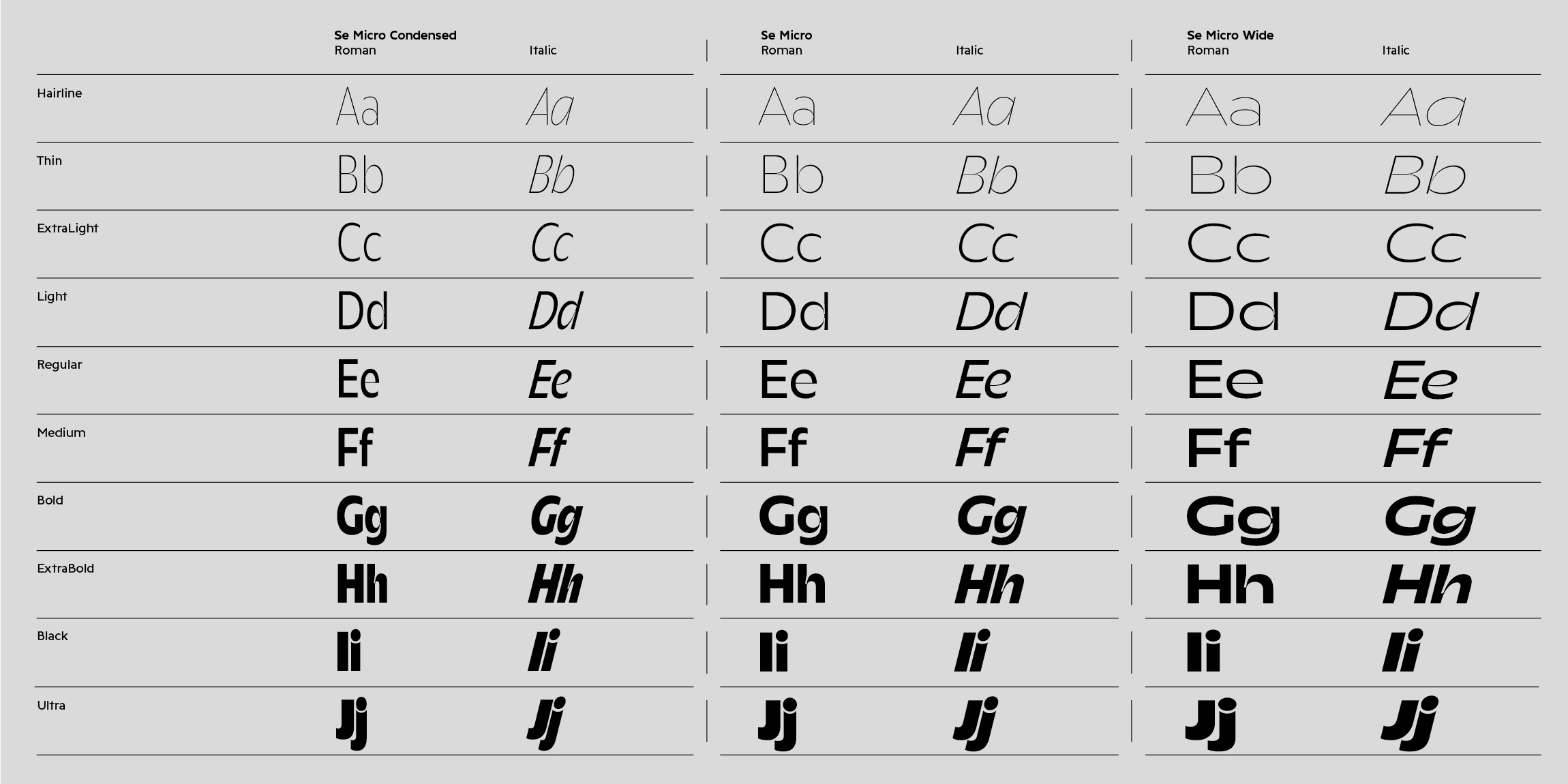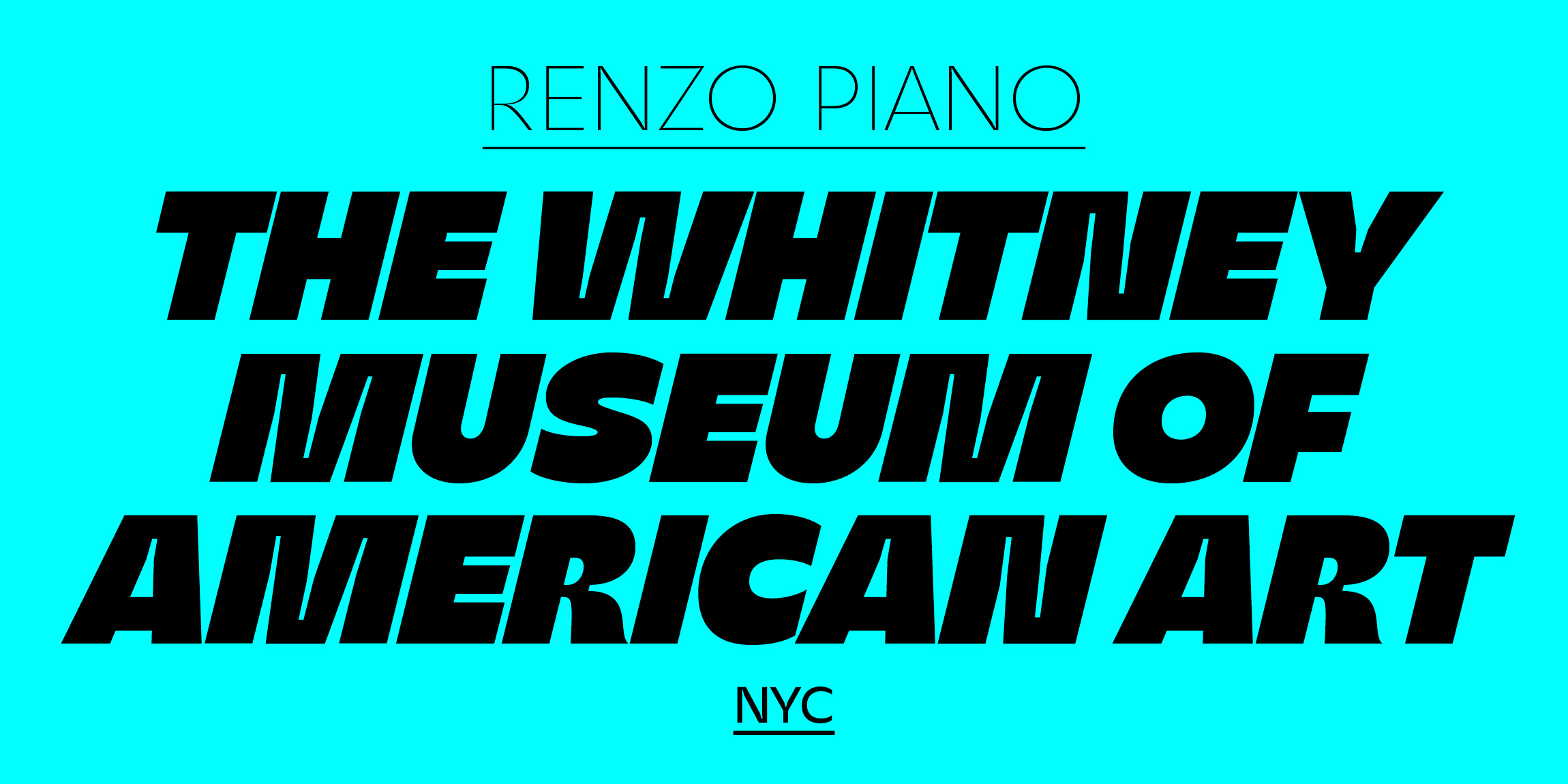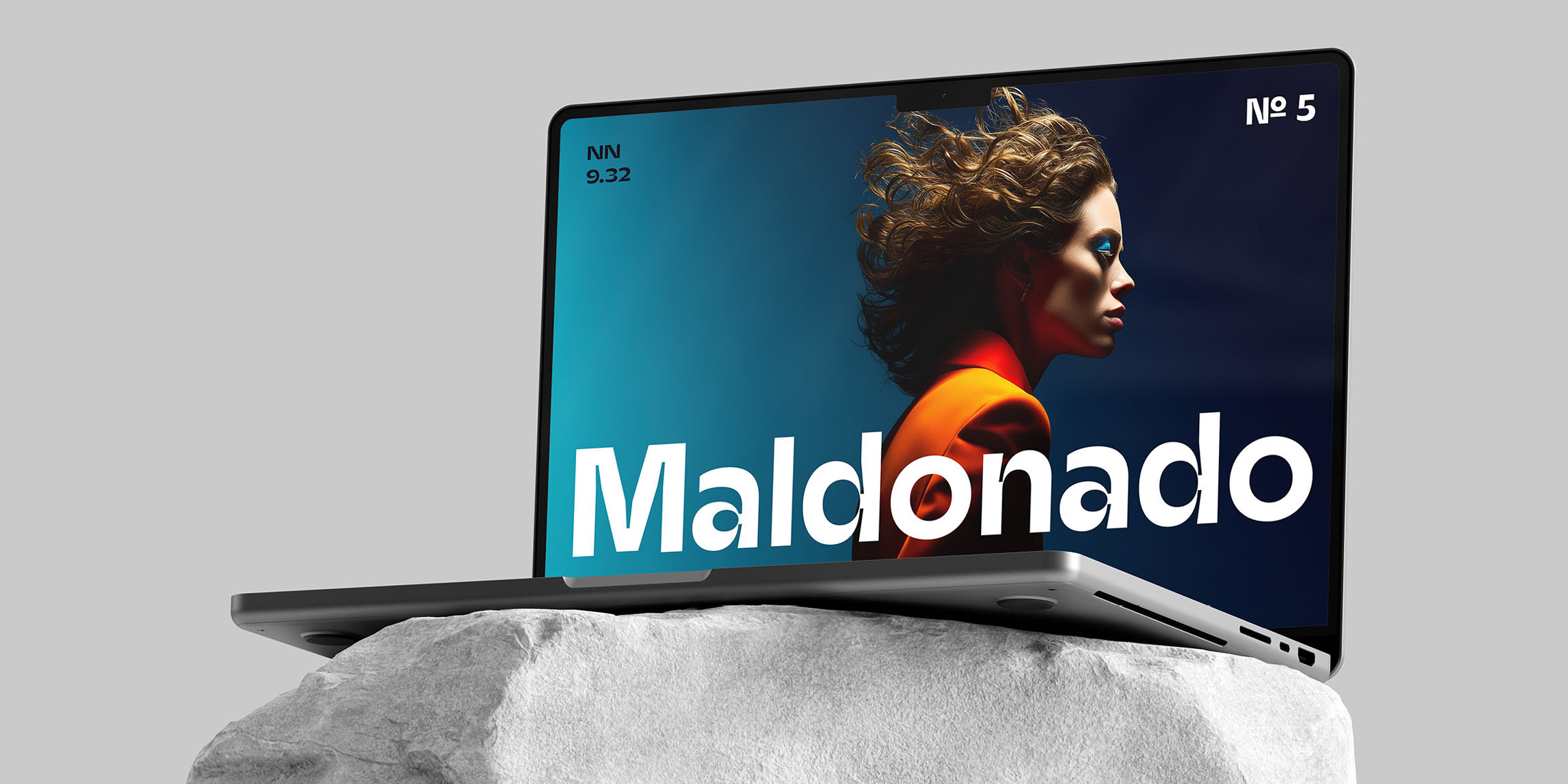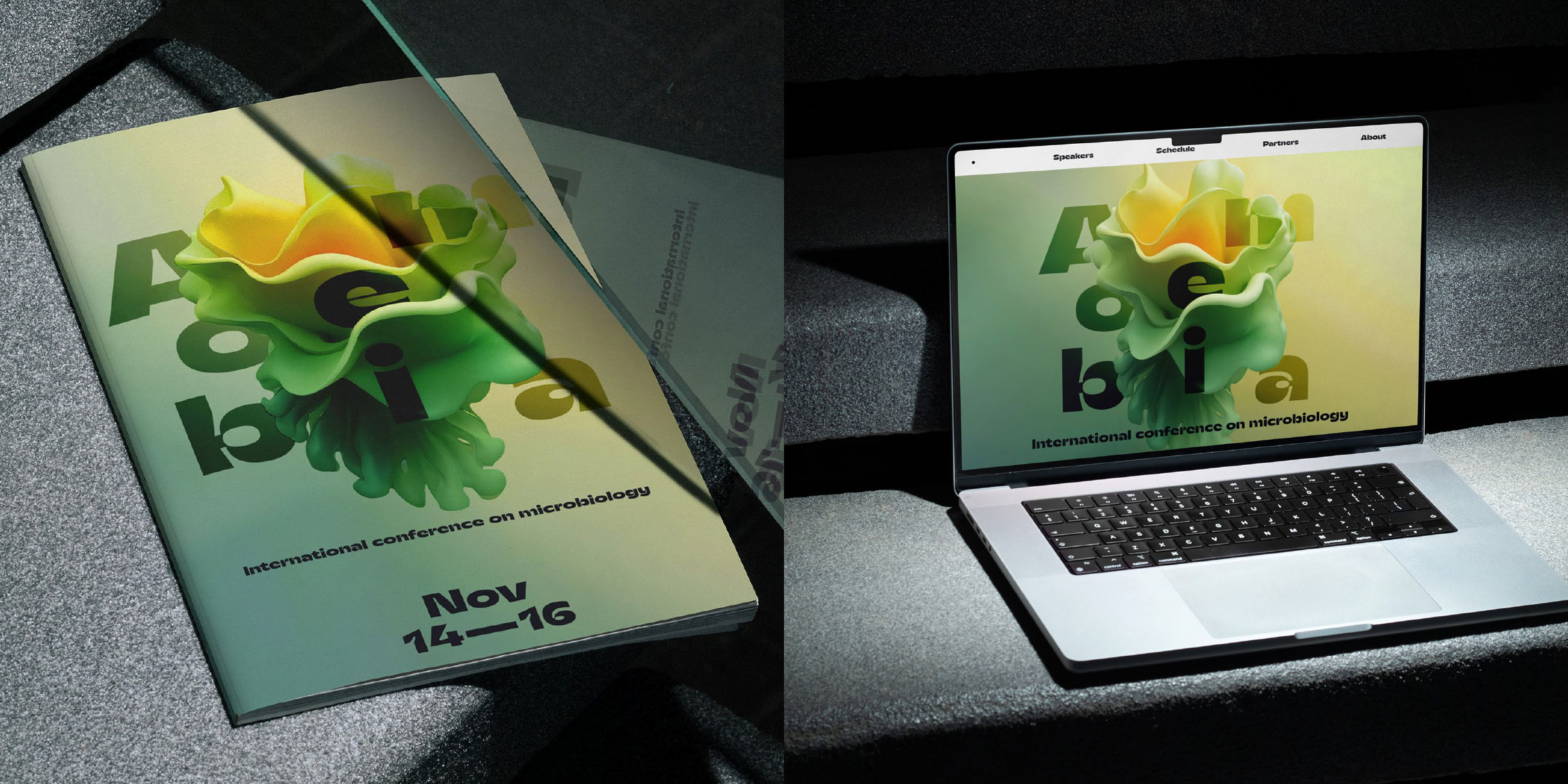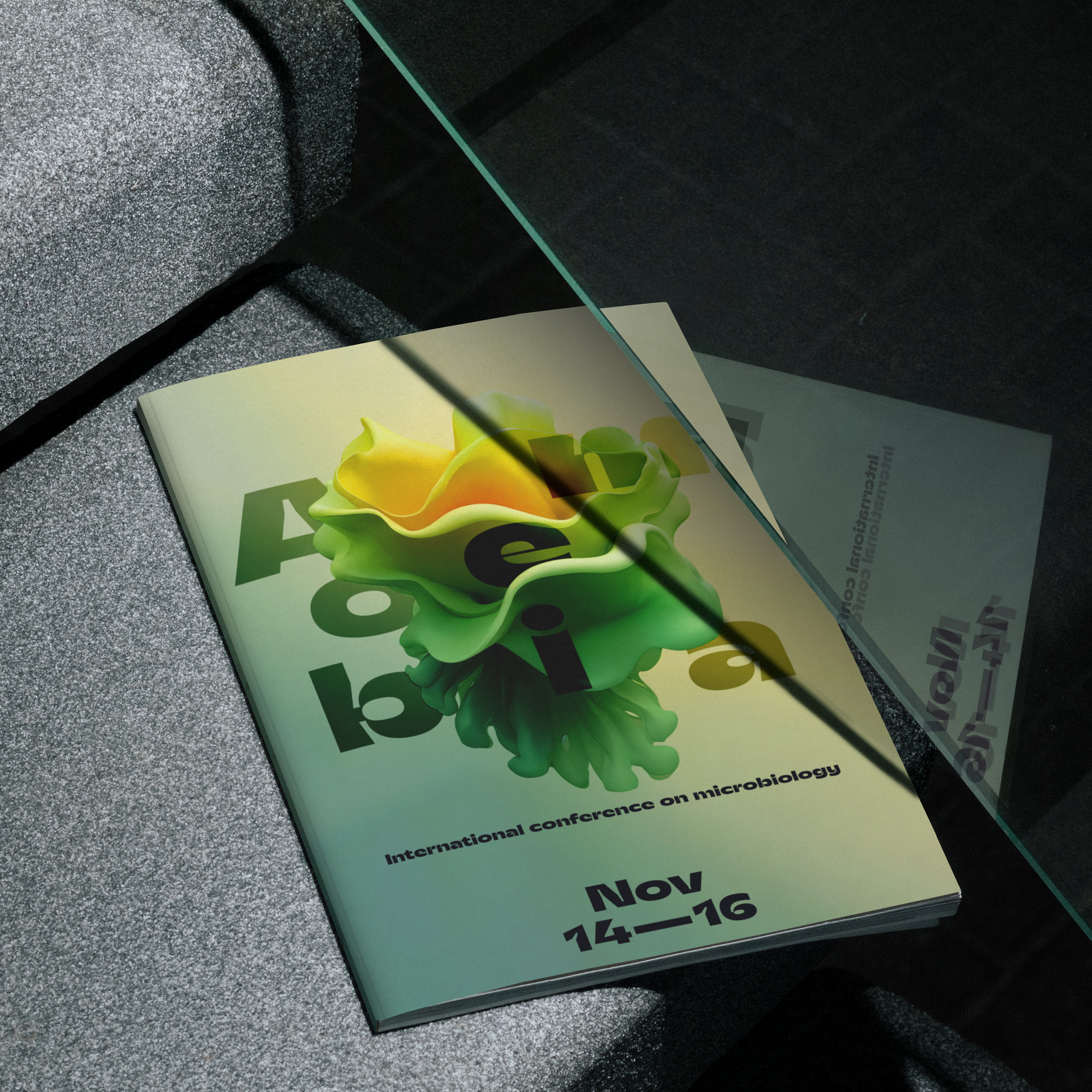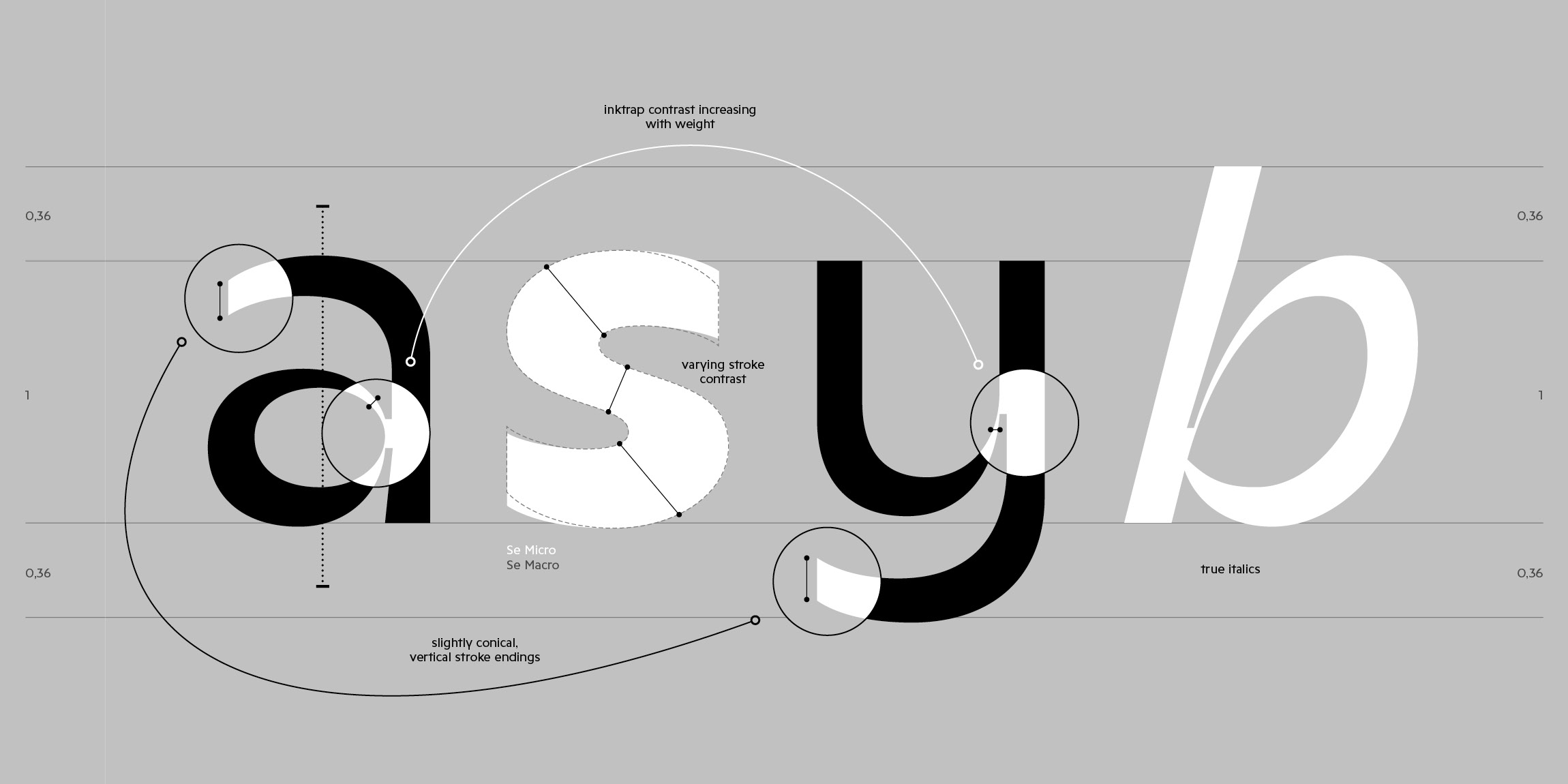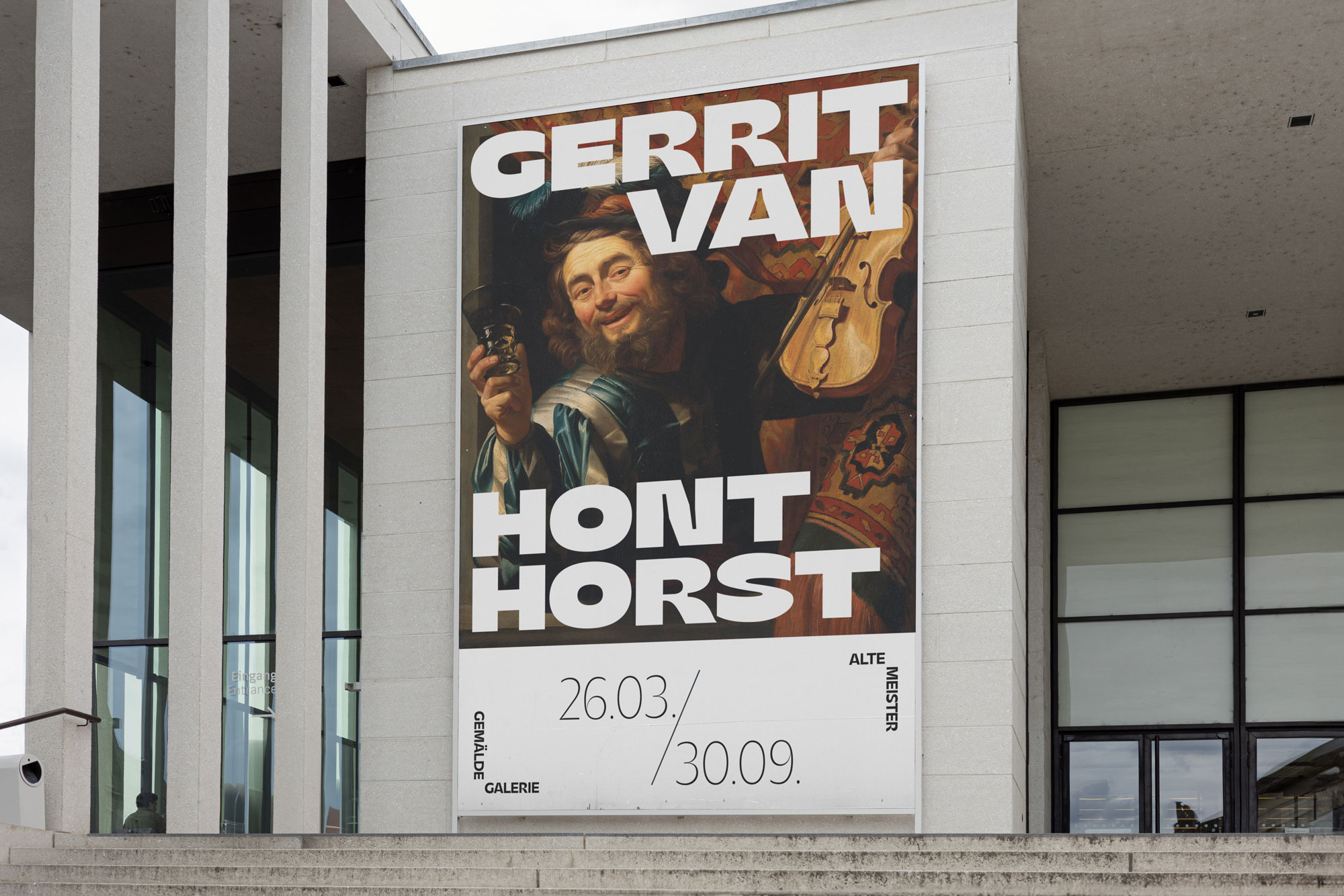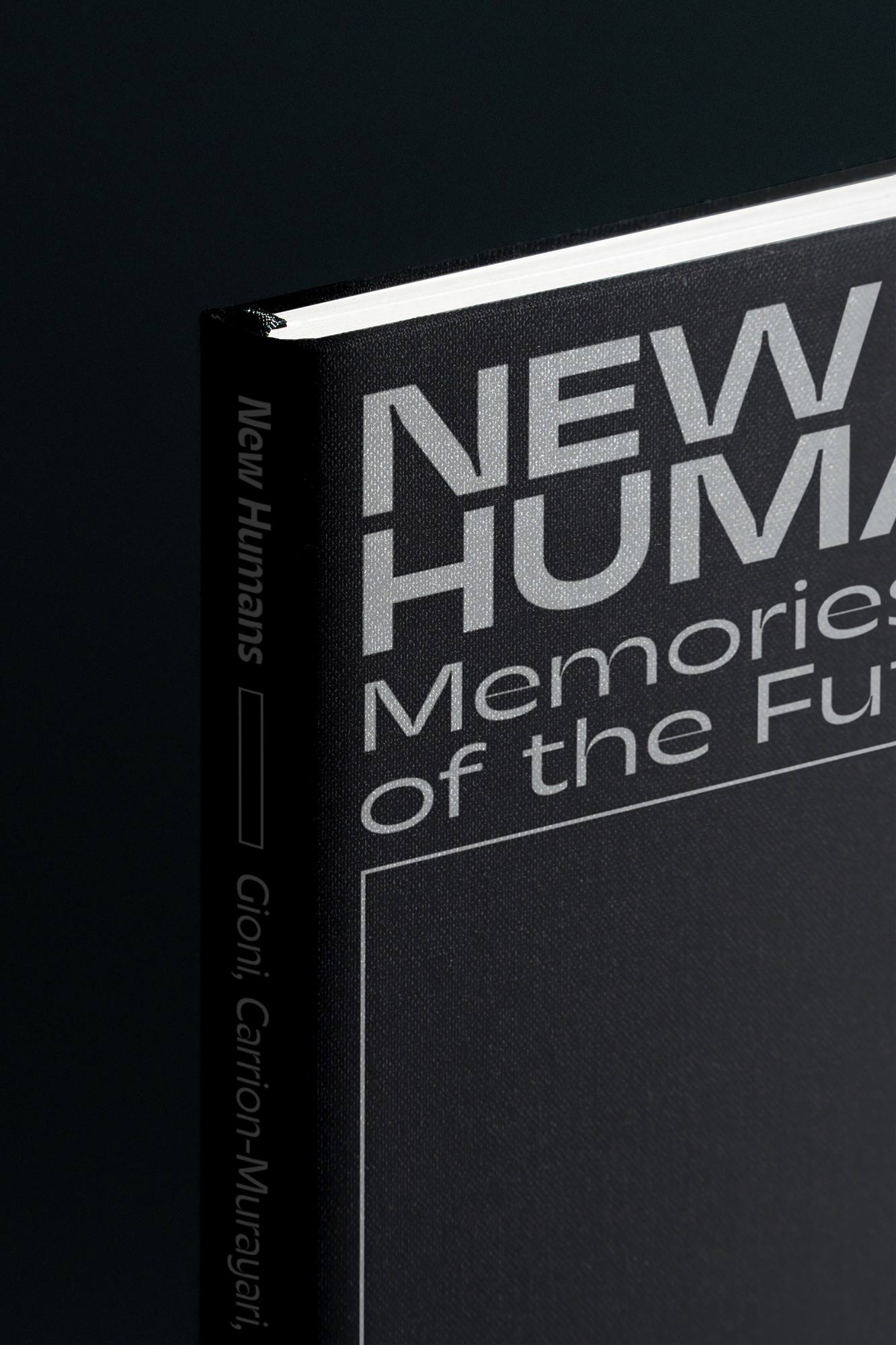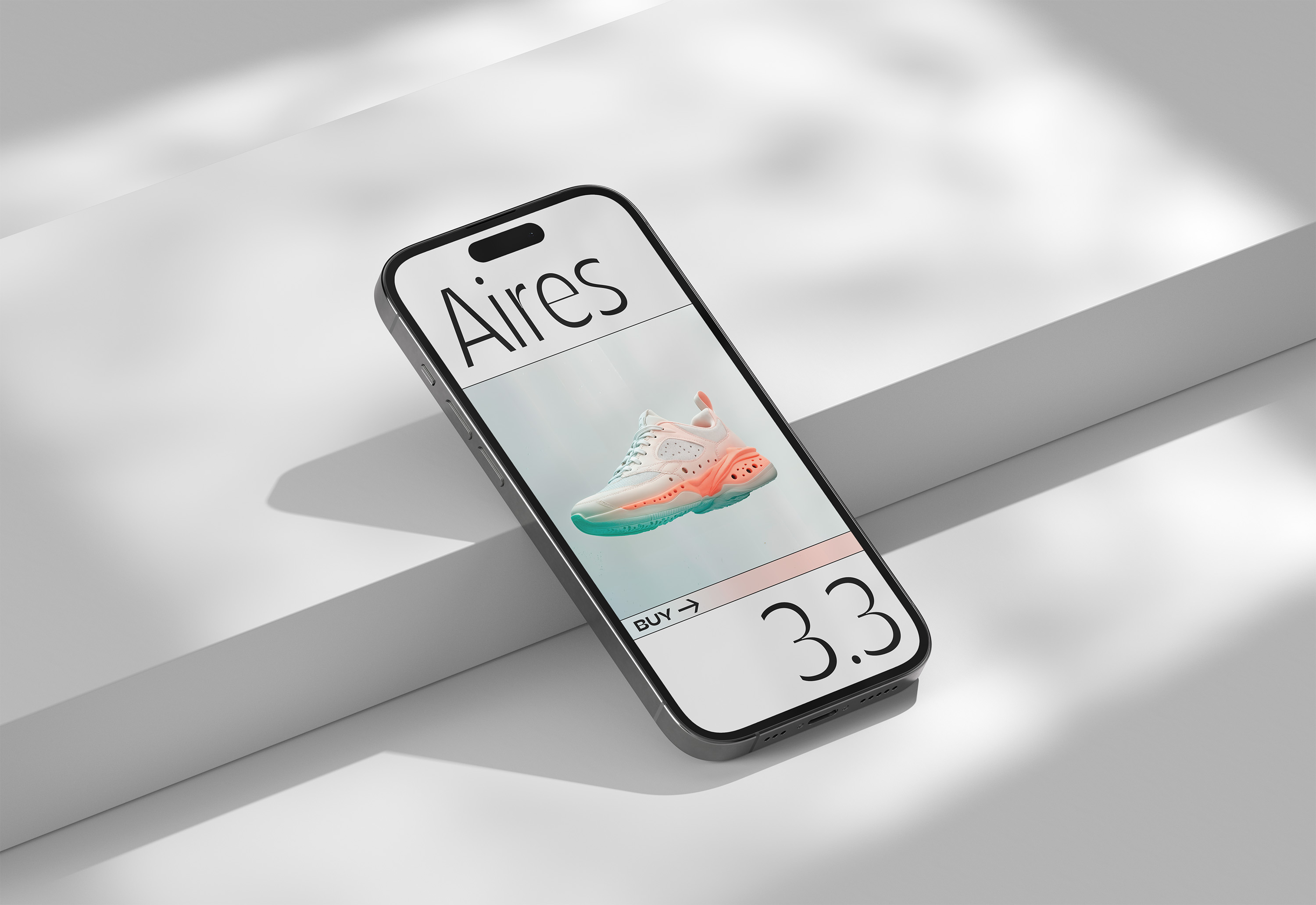
Se Micro is the microtypographic counterpart to its sibling, Se Macro – refined for clarity at small sizes. Both blend functional versatility for use in flexible design systems with architectural precision and understated elegance. While Se Micro follows the same skeleton as Se Macro, its differences become more pronounced in the heavier weights. Se Micro’s open apertures and deep inktraps are optimized for performance in challenging conditions. When used at display sizes, these features shift from purely functional to aesthetically distinctive, giving it a strong and idiosyncratic character.
Designed for the visual language of contemporary brands, fashion labels, cultural platforms, and design-driven products, Se Micro offers more than function – it offers identity. It’s a tool for designers who demand both structural integrity and stylistic impact. Spanning an impressive 10 weights and 3 widths, Se Micro is part of Gallery Type’s Se Collection, launched with Se Macro and to be joined by Se Mono and Se Rounded – to be released between 2026 and 2027.